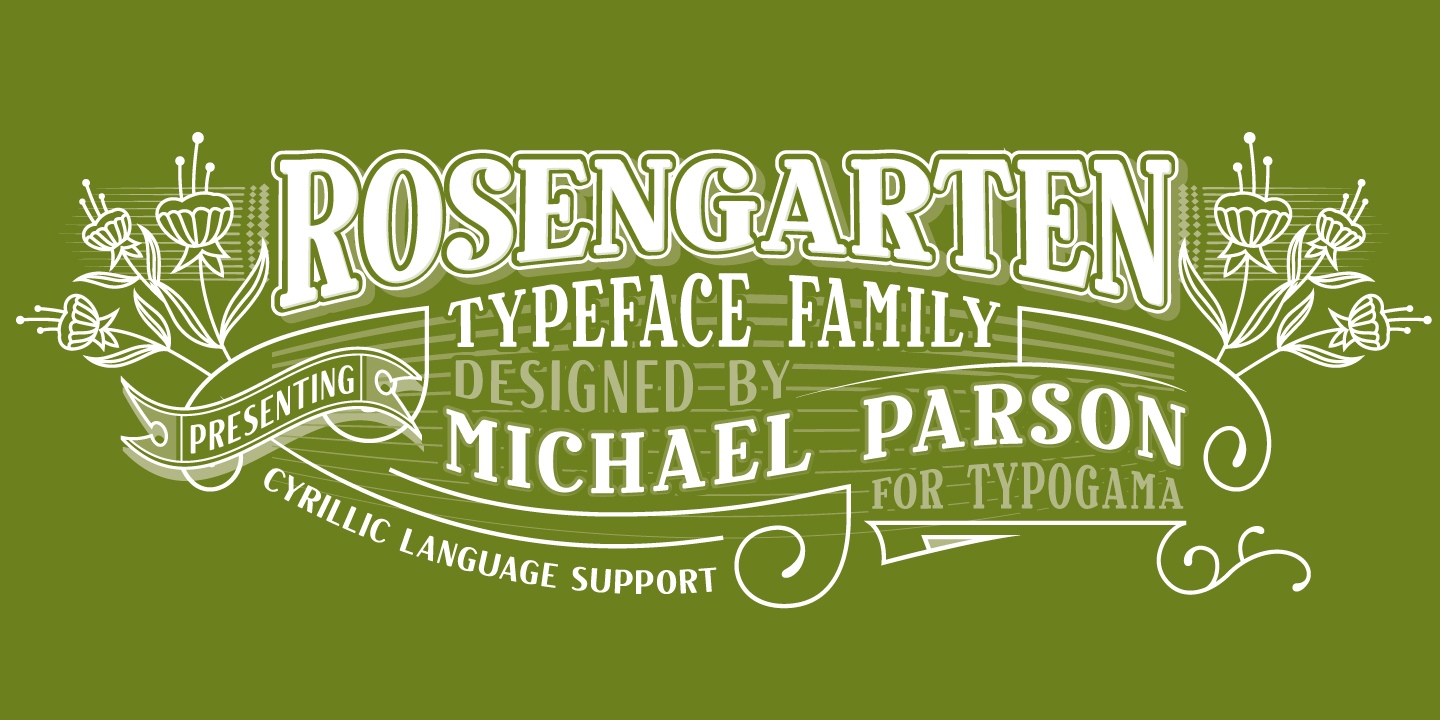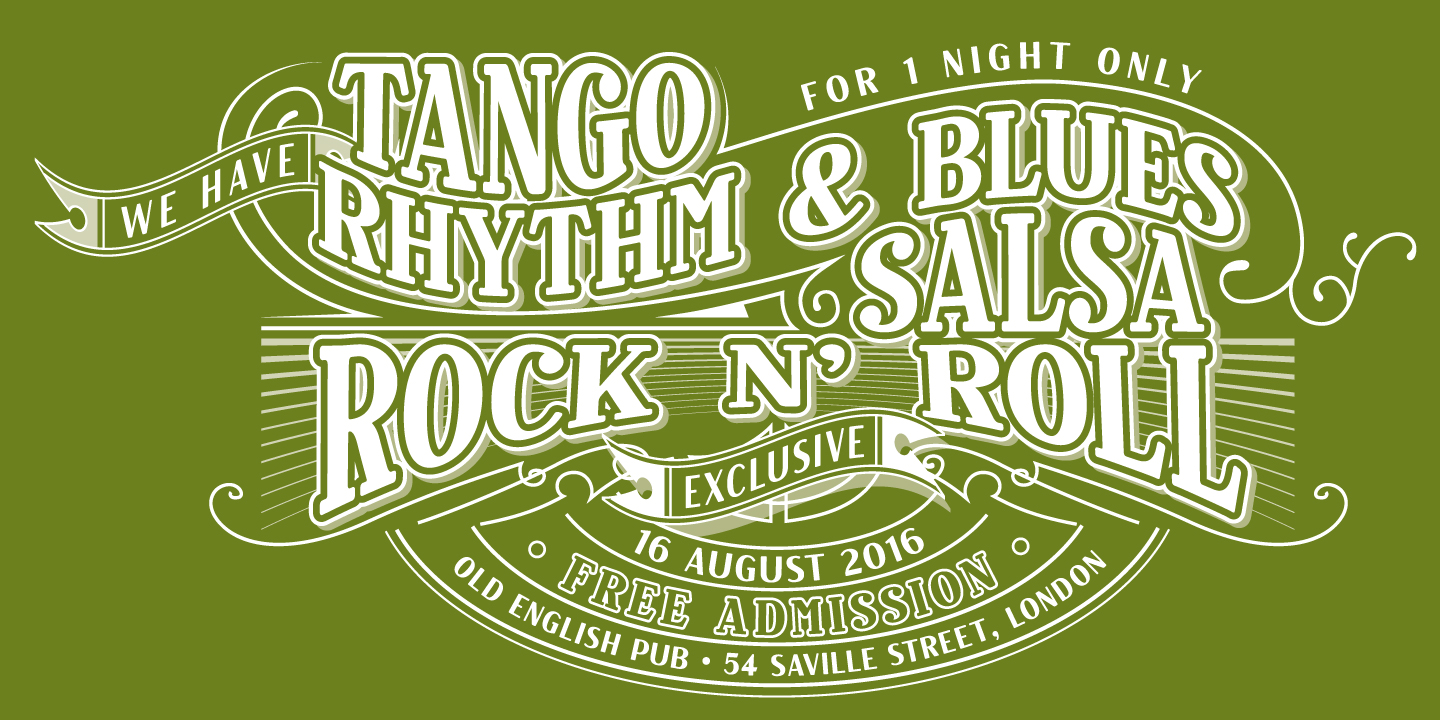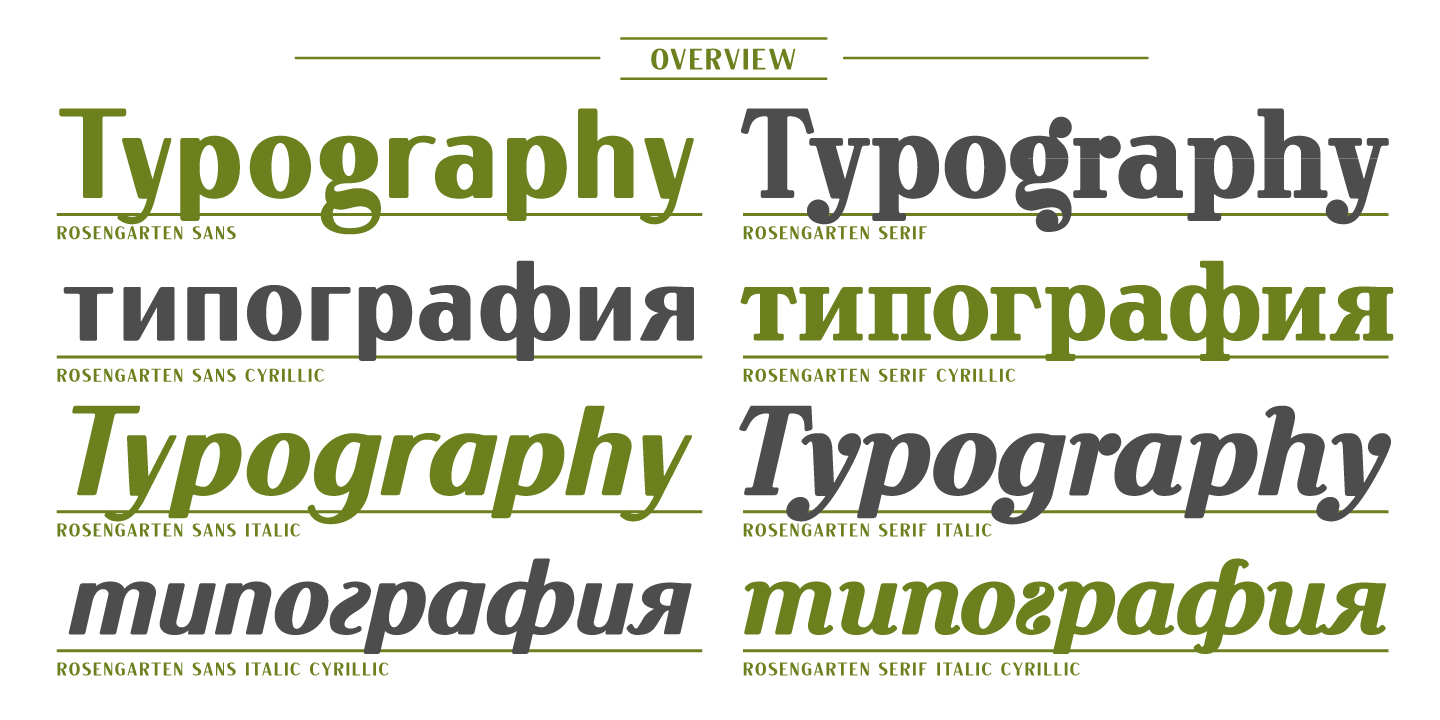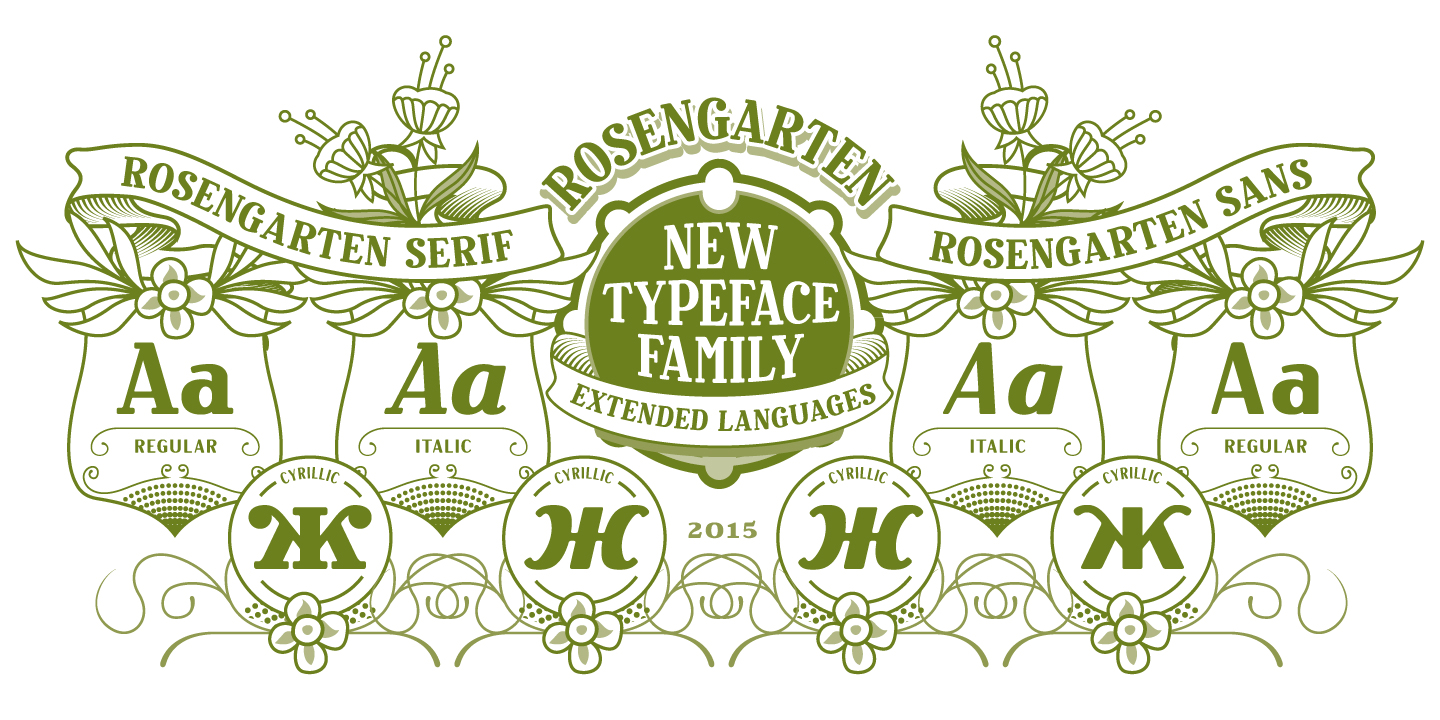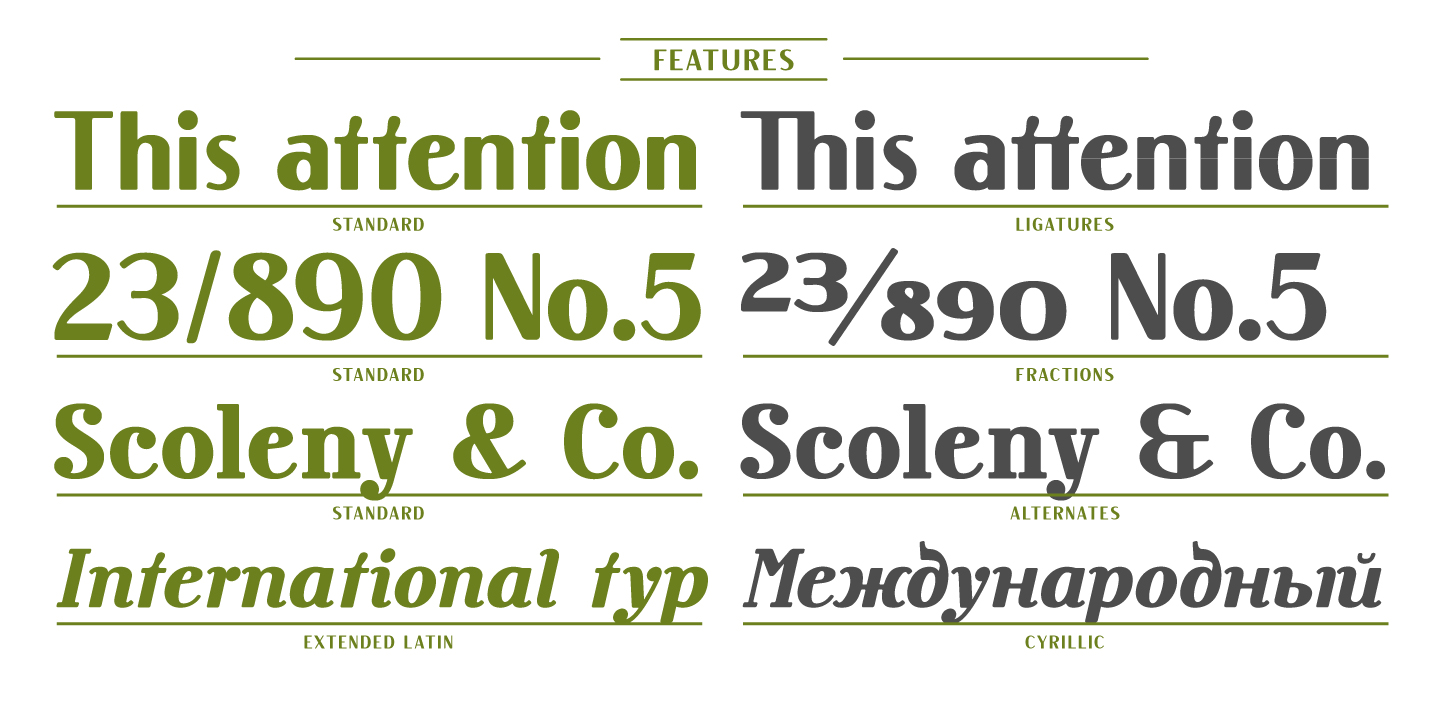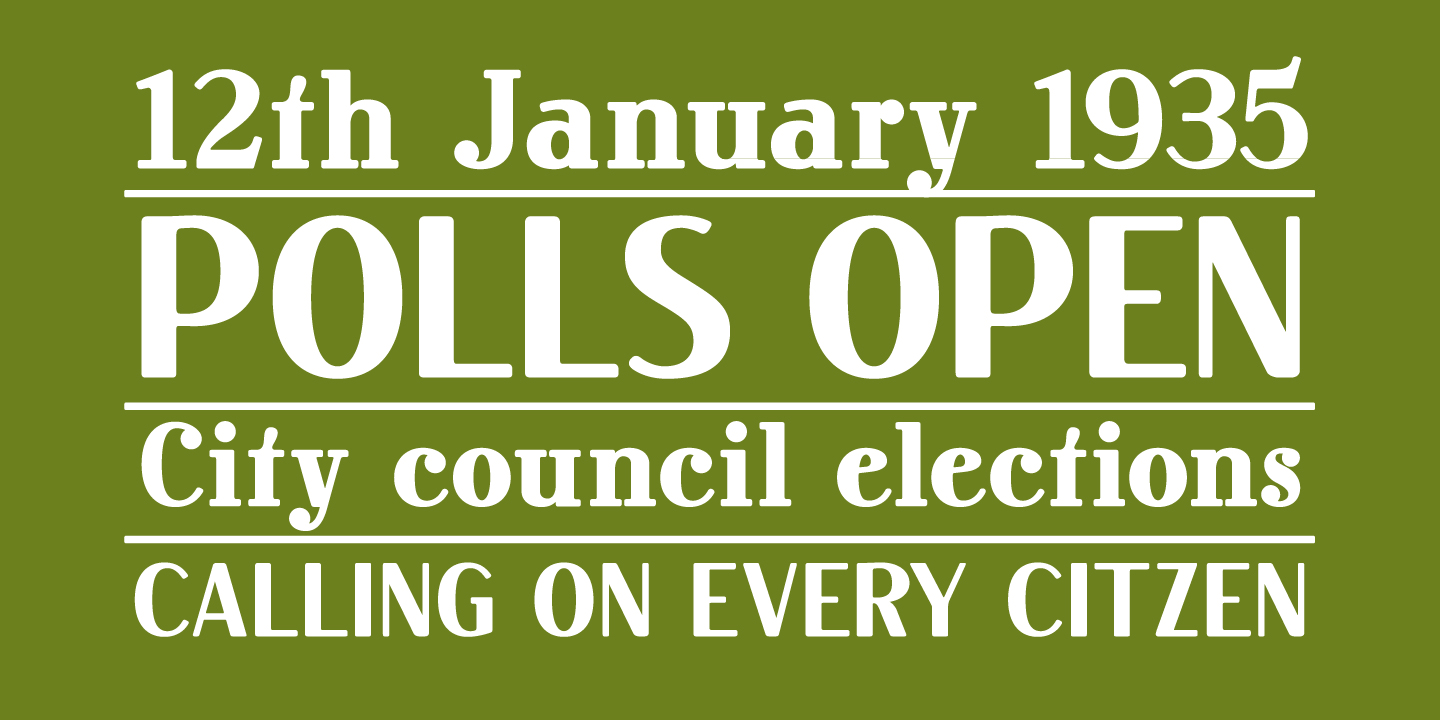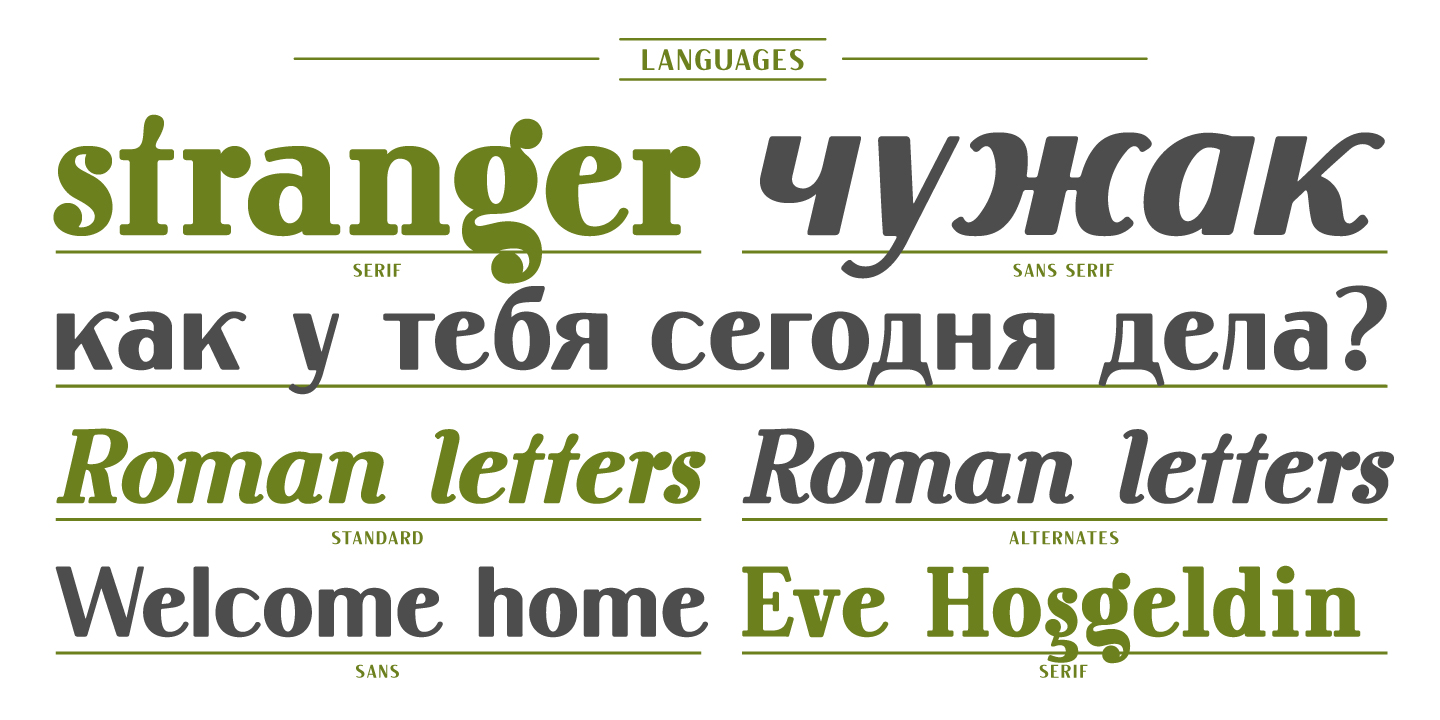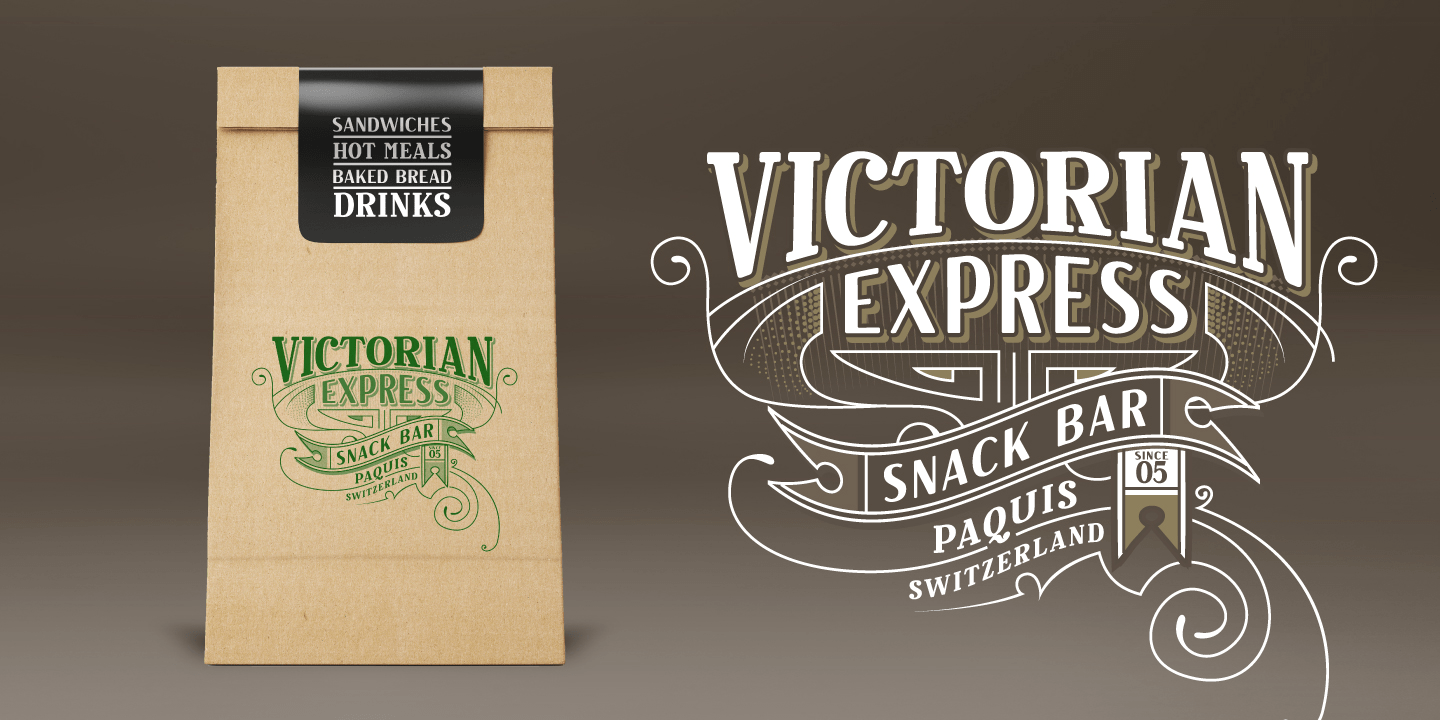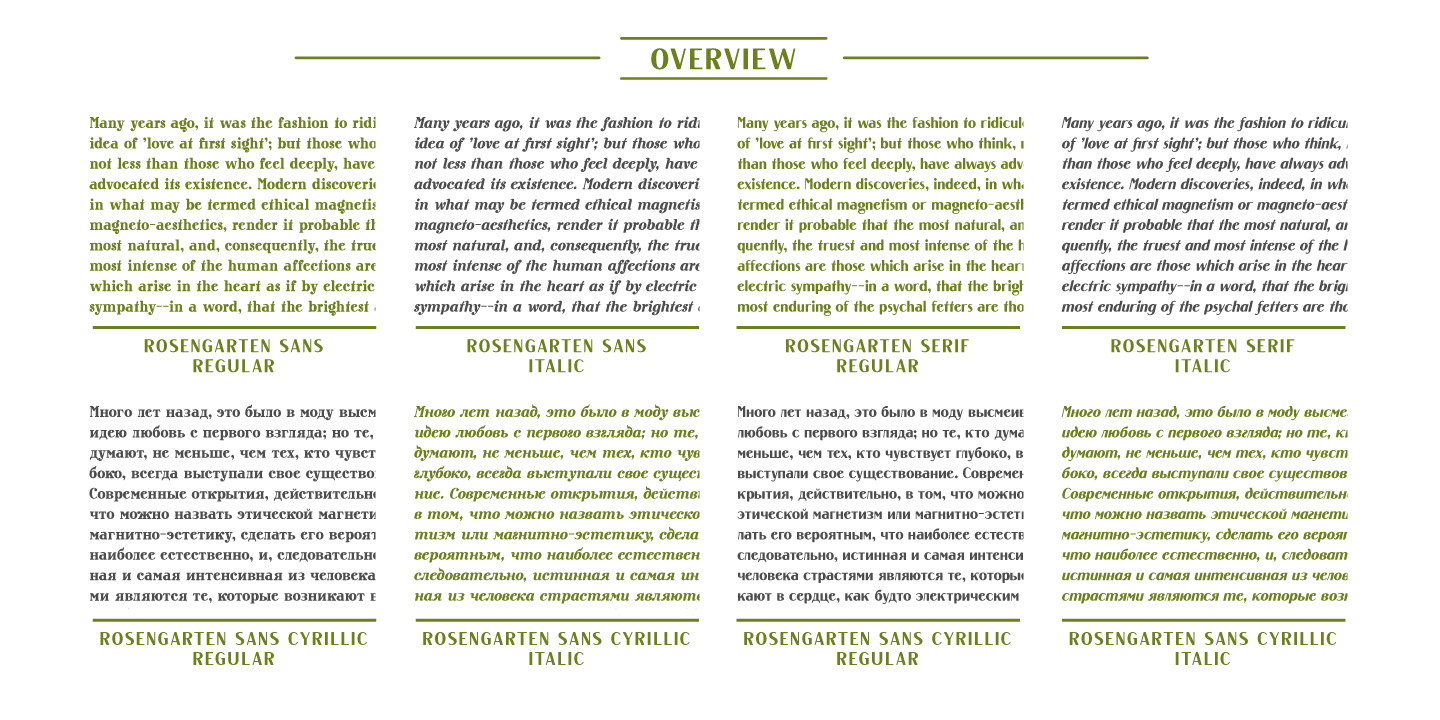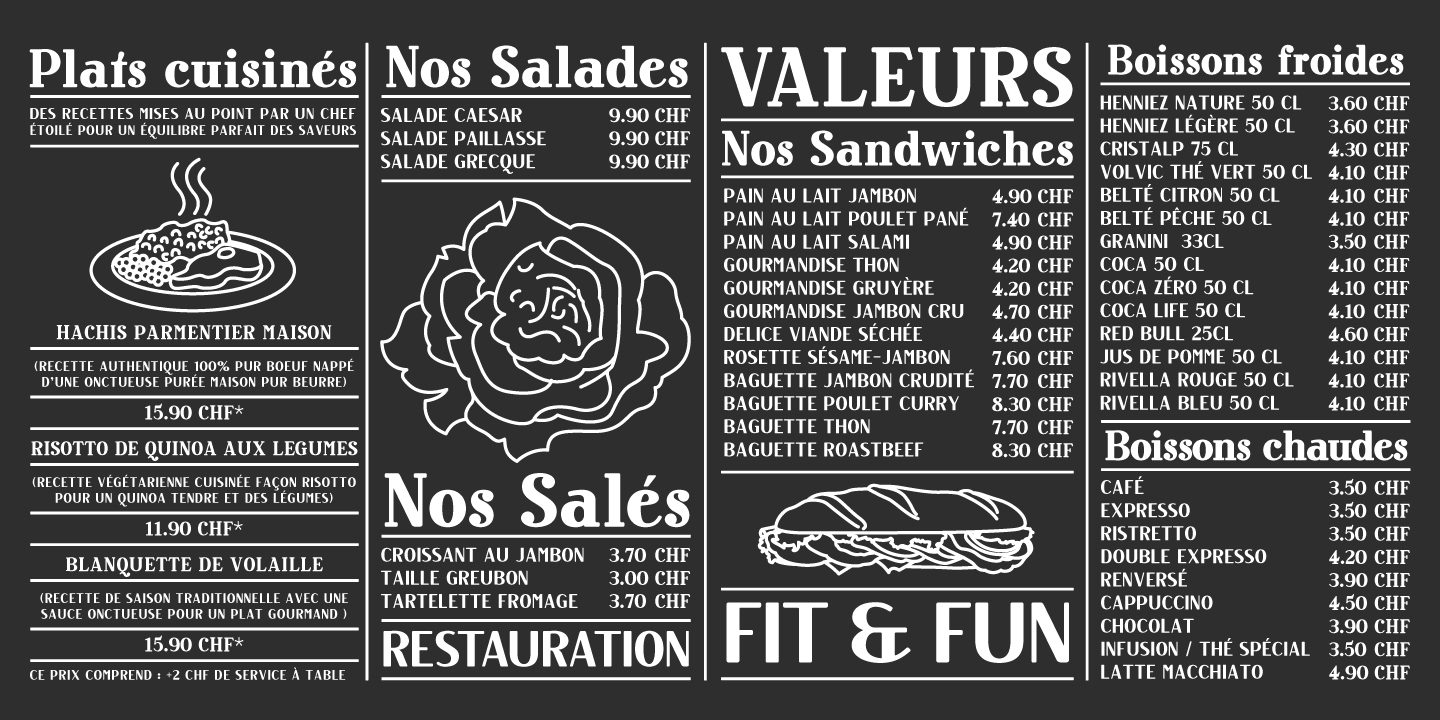
Rosengarten
Font Family by Typogama
Rosengarten is a condensed, bold typeface inspired by the work of Lucien Bernhard and the Plakatstil mouvement. With bold, rounded serifs, this typeface was created for use in headlines and larger point sizes. A complimentary sans serif style was integrated as a secondary weight with accompanying italics to allow a combination of styles to be set in layouts. This typeface includes an extended Latin and Cyrillic language support.